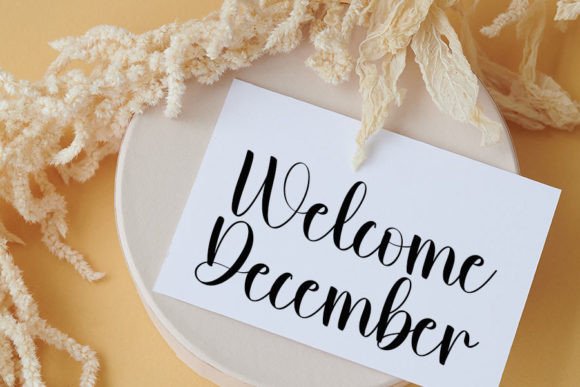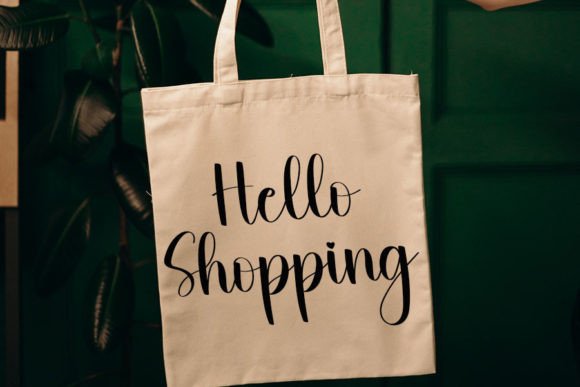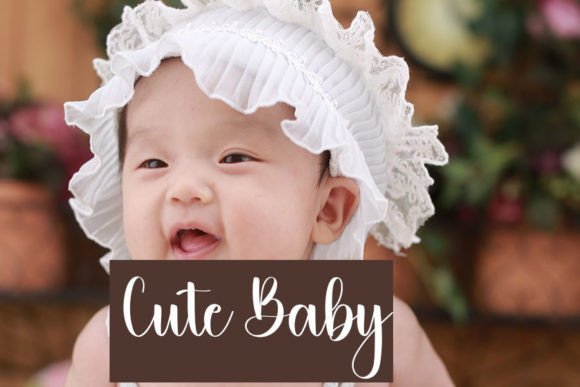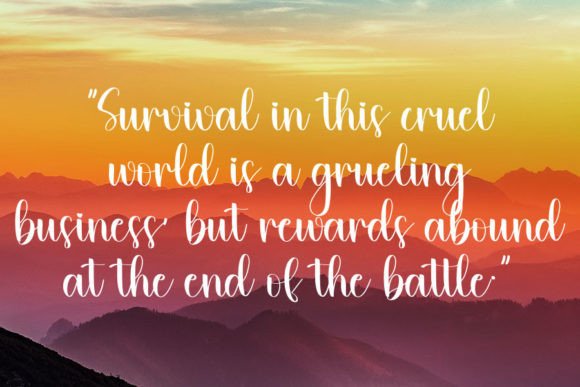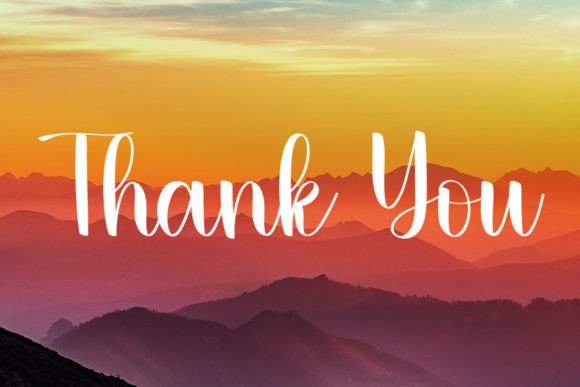
Introducing Beside Font: The Ultimate Handwritten Companion for Designers and Crafters
Are you tired of using the same old fonts for your designs and crafts? Look no further! Beside Font is here to revolutionize your creative projects with its fun and friendly handwritten style. Whether you’re a designer, crafter, or simply someone who loves making greeting cards, Beside Font is the perfect addition to your typography toolkit.
The Versatility of Beside Font
One of the best things about Beside Font is its incredible versatility. This font is not limited to just one or two specific uses – it’s perfect for a wide range of projects, including:
- Crafts: Use Beside Font to add a personal touch to your handmade crafts, such as scrapbooking, journaling, and DIY gifts.
- Digital Design: Add a playful and approachable feel to your digital designs, including social media graphics, blog posts, and website headers.
- Presentations: Make your presentations stand out with Beside Font’s friendly and engaging style.
- Greeting Cards: Create beautiful and heartfelt greeting cards for any occasion with Beside Font’s charming handwritten look.
Why Beside Font is a Must-Have for Designers and Crafters
So, what makes Beside Font so special? Here are just a few reasons why it’s sure to become your go-to font:
- Unique and Eye-Catching: Beside Font has a one-of-a-kind handwritten style that’s sure to grab attention and add a touch of personality to your designs.
- Easy to Read: Despite its playful style, Beside Font is incredibly easy to read, making it perfect for both digital and print projects.
- Flexible: Use Beside Font for headings, body text, or even decorative elements – it’s versatile enough to work in any context.
- Fun and Friendly: Beside Font has a lighthearted and approachable feel that’s perfect for creating designs that are both fun and engaging.
Tips for Using Beside Font in Your Designs
Now that you’re excited about Beside Font, here are a few tips for getting the most out of this amazing font:
- Experiment with Sizes: Beside Font looks great in a variety of sizes, from large headings to smaller body text. Don’t be afraid to experiment and find the perfect size for your project.
- Pair it with Other Fonts: Beside Font pairs perfectly with a range of other fonts, from bold and modern to elegant and script. Try pairing it with different fonts to create a unique and interesting look.
- Use it for Emphasis: Beside Font is perfect for adding emphasis to key words or phrases in your designs. Use it to draw attention to important information or to add a touch of personality to your text.
| Font Name | Beside Font |
| Author | Ganden Letter |
In conclusion, Beside Font is an amazing addition to any designer’s or crafter’s toolkit. Its fun and friendly handwritten style makes it perfect for a wide range of projects, from crafts and digital design to presentations and greeting cards. With its versatility, unique style, and ease of use, Beside Font is sure to become your go-to font for all your creative projects. So why wait? Give Beside Font a try today and see the difference it can make in your designs!